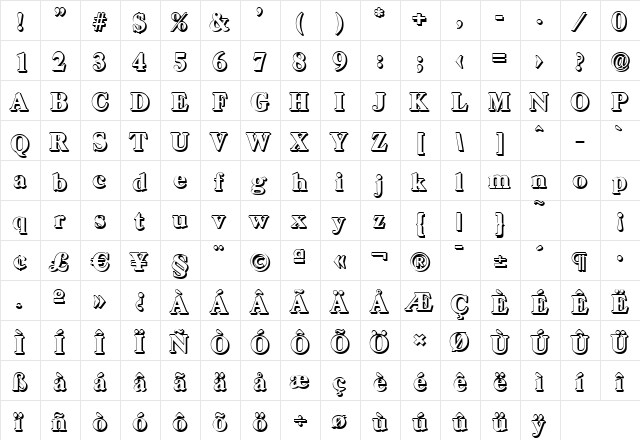
WesleyBeckerShadow-Heavy Regular
Design Context for WesleyBeckerShadow-Heavy Typeface
WesleyBeckerShadow-Heavy is built around its visual character rather than neutral utility — its distinctive forms are designed to make an impression at display sizes.
Font Pairing: Pair with a clean neutral sans-serif for body copy to let WesleyBeckerShadow-Heavy's character lead without overwhelming the composition.
Pro Tip: Use WesleyBeckerShadow-Heavy exclusively at display sizes — it was designed to be seen, not read at length. Let a neutral companion handle body copy.